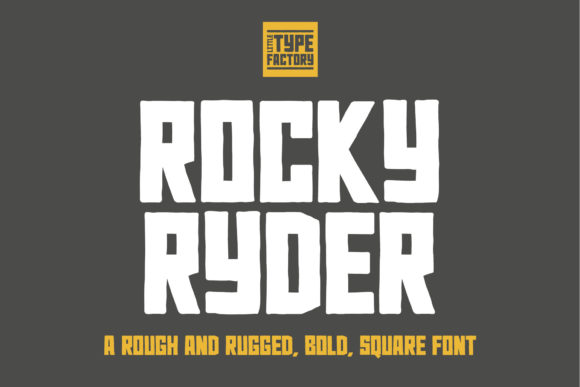
Welcome to the world of Rocky Ryder, the captivating sans serif font that brings a touch of distinction to any creative endeavor. This remarkable font, hailing from the esteemed Little Type Factory, is a true masterpiece, meticulously crafted to infuse your designs with a bold and unforgettable presence.
Embark on a journey of visual expression with Rocky Ryder, the font that unlocks your imagination and empowers you to create designs that speak volumes. Its distinctive letterforms, carefully balanced proportions, and playful curves command attention, leaving a lasting impression on your audience. Whether you're a seasoned designer or just starting, Rocky Ryder is your gateway to creating designs that captivate and inspire.
With its inherent versatility, Rocky Ryder seamlessly adapts to a myriad of design projects, from eye-catching logos and branding elements to dynamic posters and captivating social media graphics. Its bold strokes and sharp angles lend a touch of authority and sophistication, while its playful spirit adds a touch of whimsy and intrigue. Unleash your creativity and explore the endless possibilities that await with Rocky Ryder.
Join the ranks of discerning designers who have discovered the allure of Rocky Ryder, the font that elevates ordinary designs into extraordinary works of art. Transform your creative vision into a reality, one letter at a time, as you experience the transformative power of Rocky Ryder. Embrace the beauty of typography and let your designs shine with an unforgettable flair.